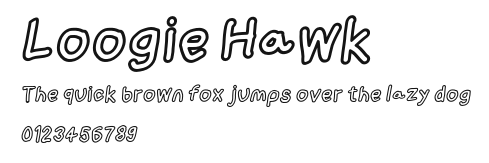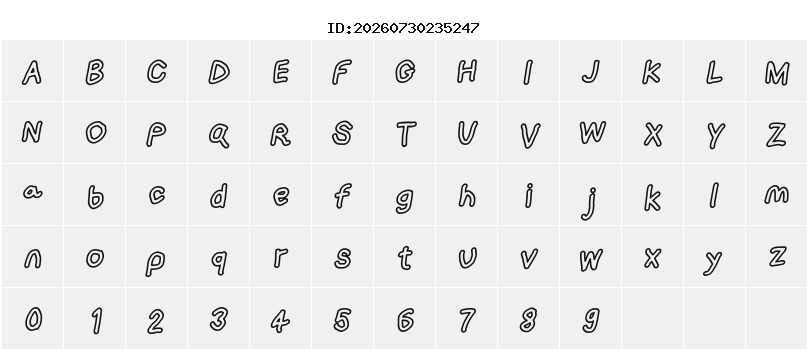
• Font Name: Loogie Hawk
• Full Font Name: Loogie Hawk Outline Oblique
About Loogie Hawk.otf
Loogie Hawk.otf is a modern, elegant sans-serif font designed for ultimate readability and visual harmony. Perfect for branding, headlines, web design, and print materials.